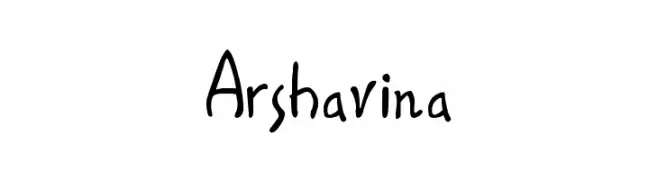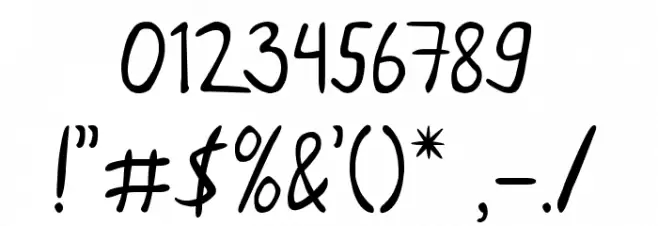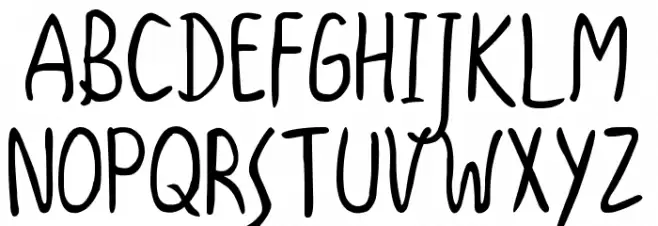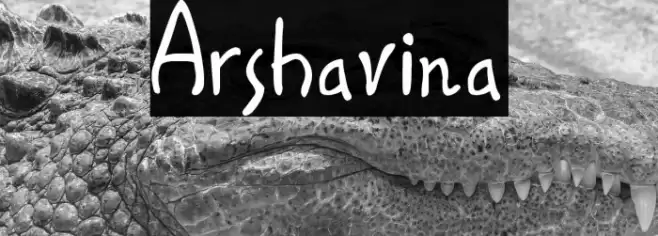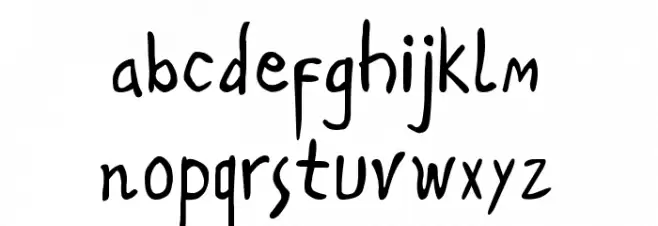
Arshavina Font
Arshavina Description
A playful, handwritten style font with a casual and informal appearance, featuring slightly irregular shapes and a friendly vibe.
| Overall Style | Casual, Playful, Handwritten |
| Use Case | Headlines, Body text, Invitations, Personal projects |